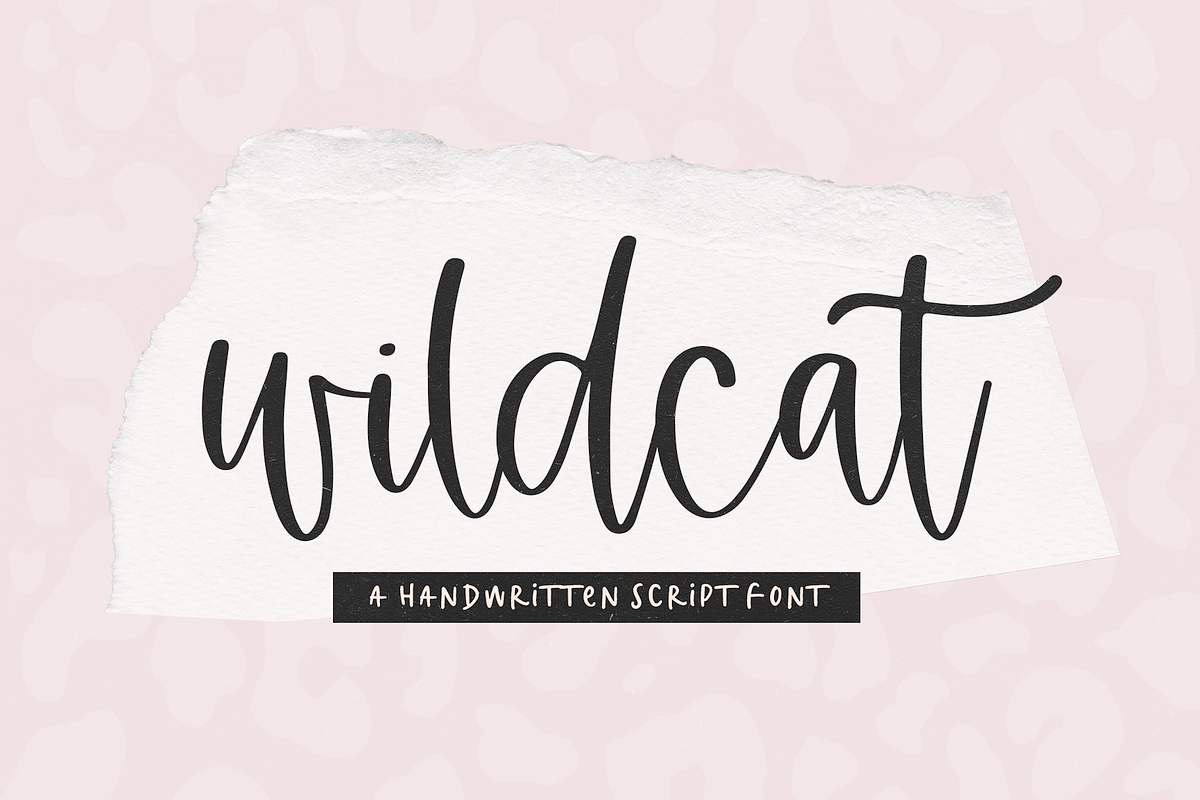
Wildcat | Handwritten Script Font Free Download is a bold and energetic typeface that captures the free-spirited nature of handwritten calligraphy. With its rough edges, playful strokes, and dynamic flow, Wildcat is perfect for logos, branding, posters, social media graphics, and creative projects that need an authentic, hand-crafted touch.
Its strong personality and fluid design make it ideal for projects that need to convey energy, creativity, and personality. Whether you're designing for a casual brand, a fun event, or artistic content, Wildcat adds a unique, spontaneous vibe to your typography.